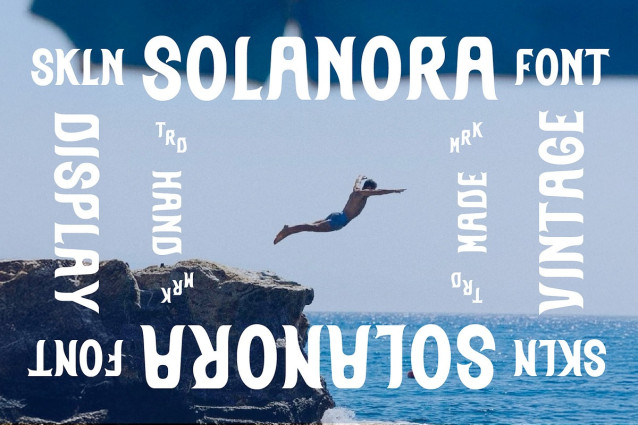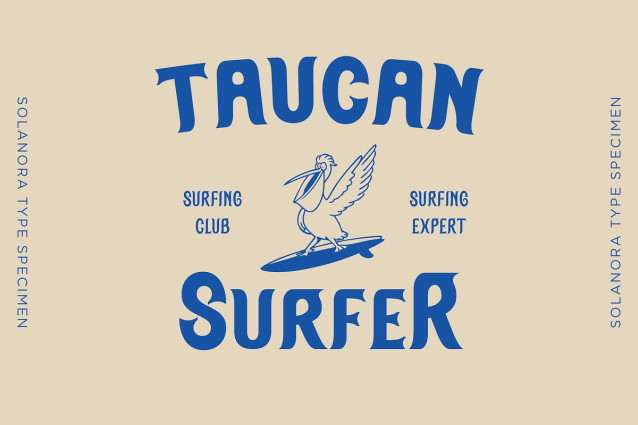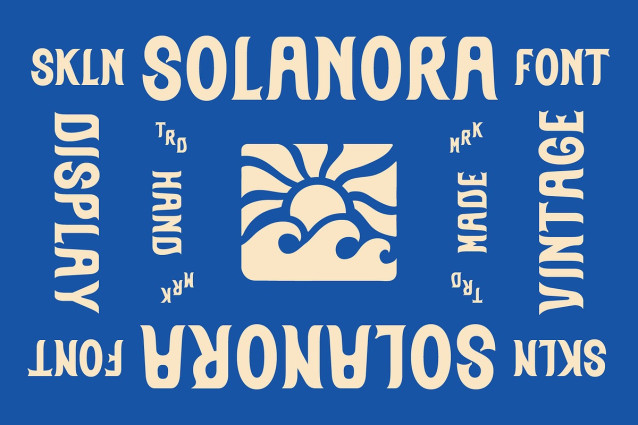
SFC Solanora Font
SFC Solanora Font captures the carefree spirit of sunshine, sea breeze, and nostalgic design. This hand-drawn display sans serif blends bold shapes with smooth, wavy details inspired by mid-century lettering and coastal signage. Each curve feels organic and full of life, bringing warmth and playfulness to your design projects.